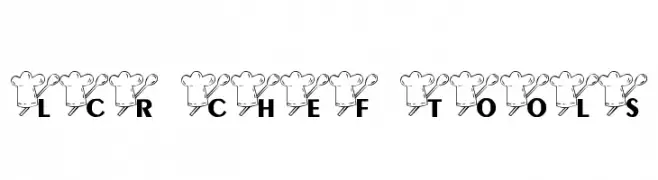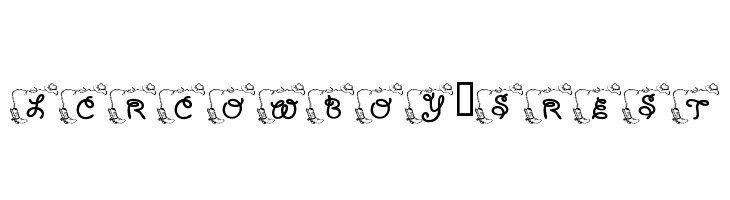
A playful, sketch-like font with a hand-drawn, artistic feel.
A bold, playful font with a modern, slightly quirky style.
A playful, thin, and geometric font with a modern aesthetic.
A bold, dynamic font with playful, energetic characters.
An elegant and ornate script font with intricate swirls and flourishes.
A playful, bold, hand-drawn style font with a whimsical and casual feel.
A bold, playful 3D font with thick, shadowed letters.
A playful, bold font with rounded, bubbly characters.
A bold, rounded font with a playful and whimsical style.
A playful, bold handwritten font with smooth, rounded characters.
A playful, hand-drawn inline font with rounded, whimsical characters.
A playful, dotted decorative font with bold, rounded characters.
A playful, bold font with a hand-drawn, artistic style.
A modern, geometric sans-serif font with clean lines and balanced spacing.
A sleek, modern font with high contrast and elegant lines.
A modern cursive font with interconnected, flowing letters and a playful yet sophisticated style.
A graceful and elegant script font with flowing cursive strokes.
A bold, brushstroke font with jagged edges and an energetic style.
A bold, brush-style font with sharp, jagged edges and dynamic strokes.
A bold, dynamic handwritten font with fluid strokes and a modern appeal.
A bold, dripping font perfect for horror-themed designs.
A bold, playful handwritten font with dynamic, irregular strokes.
A whimsical, gothic-inspired font with playful curves and sharp edges.
Playful handwritten font with elongated letters.
A playful, handwritten-style font with fluid, organic strokes.
A bold, hand-drawn font with a distressed, textured appearance.
A bold, hand-drawn font with a rough, textured appearance and a dynamic, artistic style.
A bold, elongated font with a modern and decorative style.
A tall, narrow font with a sleek, modern design and minimal contrast.
A tall, narrow, and modern font with sleek, elongated letterforms.
A bold, distressed font with a vintage, grunge texture.